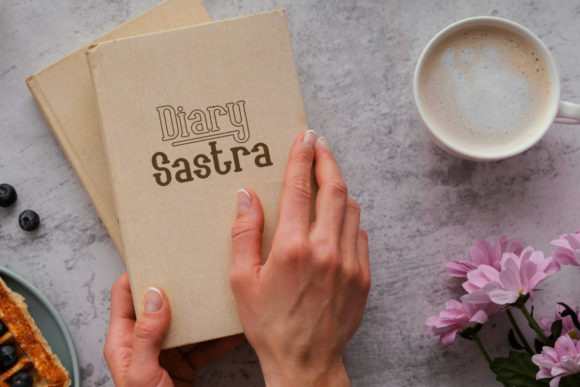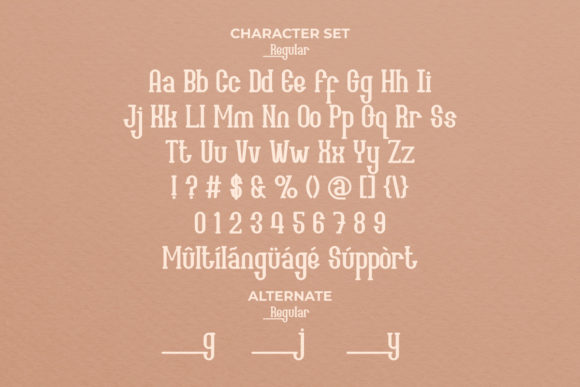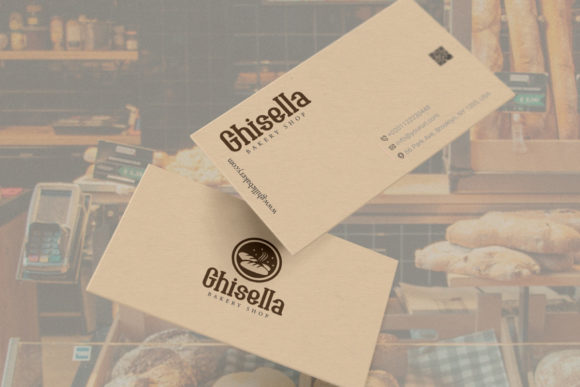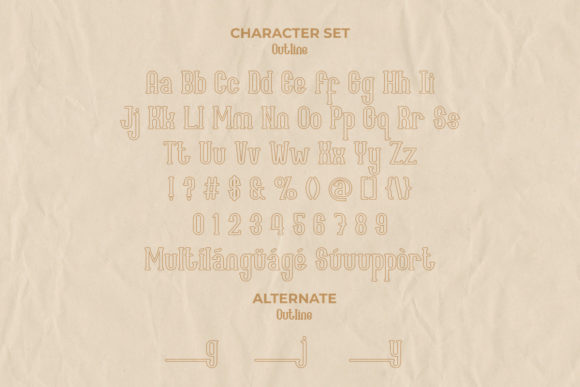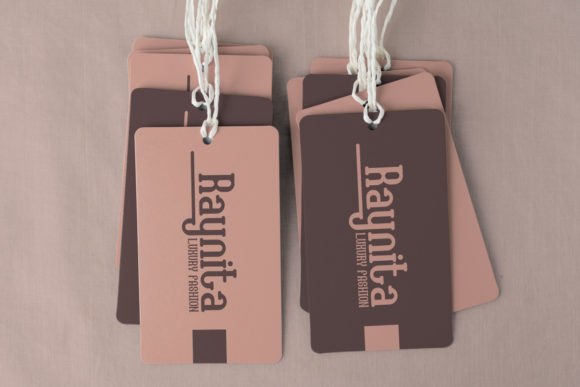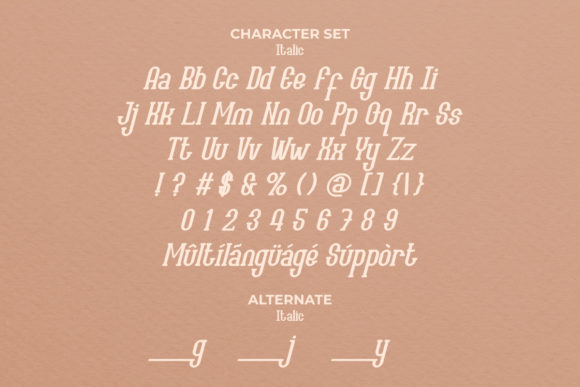
Introduction to Maybury Font
Do you remember that moment when you finally find the perfect design element to elevate your creative project? It’s like a spark of inspiration hits you, and everything falls into place. For designers, discovering a high-quality font like the Maybury Font can be a game-changer. With its beautiful, vintage styled serifs, this font is an incredible asset to any design library.
Imagine being able to add a touch of elegance and sophistication to your designs with just a few clicks. The Maybury Font is a versatile design resource that can be used for a wide range of creative projects, from logos and branding to typography-based artworks. Its transparent background makes it easy to layer and manipulate, giving you complete control over your design.
Key Features of Maybury Font
- High-quality design resource with a unique, creative style perfect for various projects.
- Available in various font sizes, including small caps and alternate characters, to add depth and variety to your design.
- Perfect for designers working on creative projects, including logos, branding materials, and typography-based designs.
Honest Review: Maybury Font
As a designer, I’m always on the lookout for high-quality design resources to elevate my creative projects. Recently, I stumbled upon the Maybury Font, and I’m excited to share my thoughts on it.
- ✨ The Maybury Font has a unique and elegant design that’s perfect for various creative projects, from branding to editorial work.
- ⚠️ Some users may find the font’s unique design style to be too minimalist or not versatile enough for certain projects.
Overall, I’m impressed with the Maybury Font’s design and functionality. While it may have some limitations, it’s a great resource for designers looking for a high-quality, free font to add some elegance to their creative projects.
Common Use Cases for Maybury Font
Maybury Font is a versatile design resource that can be used in a variety of contexts, including branding, marketing materials, and creative projects. Some common use cases for Maybury Font include:
- Creating custom logos and branding materials
- Designing marketing materials, such as brochures and flyers
- Creating engaging social media graphics and posts